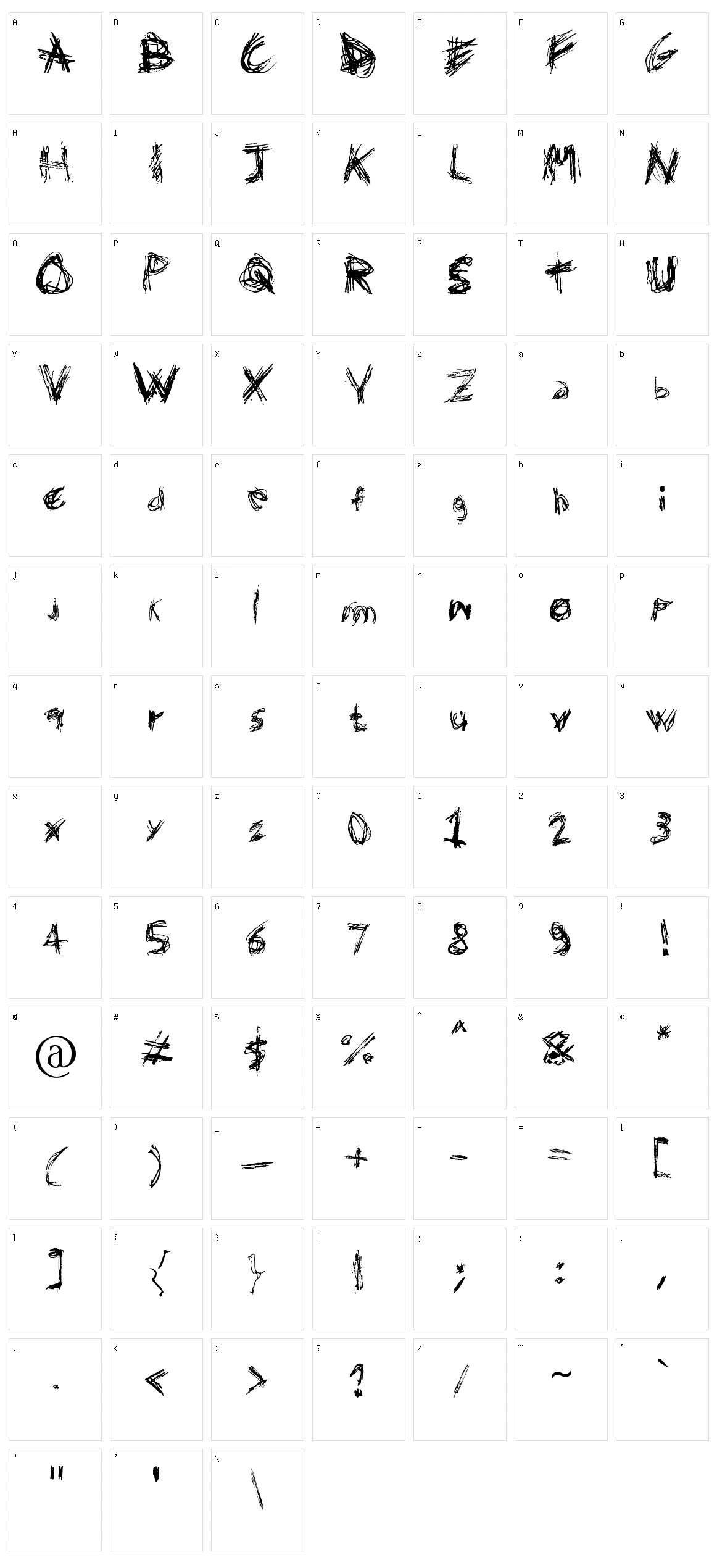
The free font Domenico 128 is carefully designed by domenico_cristallo, showcasing a thoughtful balance of creativity and usability and falls under the Trash font style. When you download the ZIP file, it contains only 58.12 KB of font files, making it lightweight and quick to download. Please review the license details below to understand permitted usage and distribution rights. If license information is not available, we recommend using this font for personal projects only or contacting the author directly for commercial usage permissions.